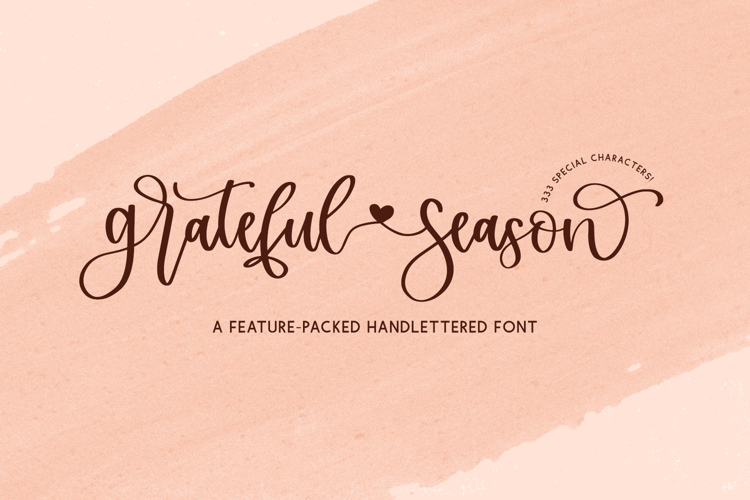
Grateful Season Script
Introducing Grateful Season Script, a modern calligraphy script. This handlettered font features 333 extra characters to customize your text to bring the perfect feminine feel to your project.
Grateful Season Script is best for:
- crafting projects on your Cricut or Silhouette machine - Grateful Season features a smooth edge for cutting & is super legible
- website design + website accents - think travel blogs, fashion blogs, & more
Grateful Season includes:
- 310 alternate characters, including right & left swashes & flourished characters
- 23 ligatures - ar, bb, cc, dd, dr, ee, er, ff, gr, ir, ll, mm, nn, oo, or, pp, rr, rr, ss, th, tr, tt, ur